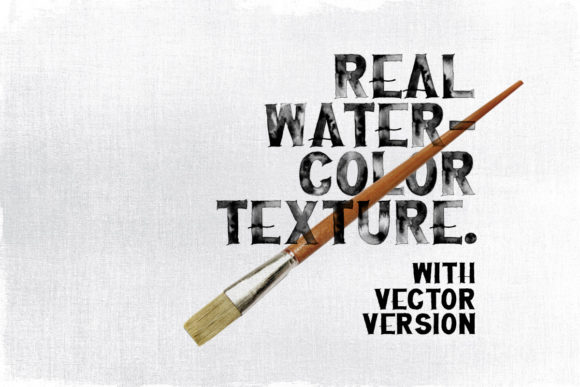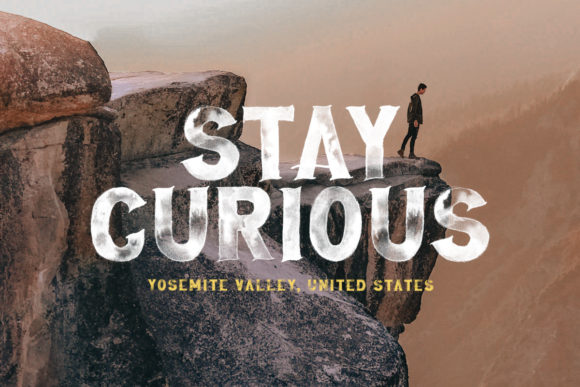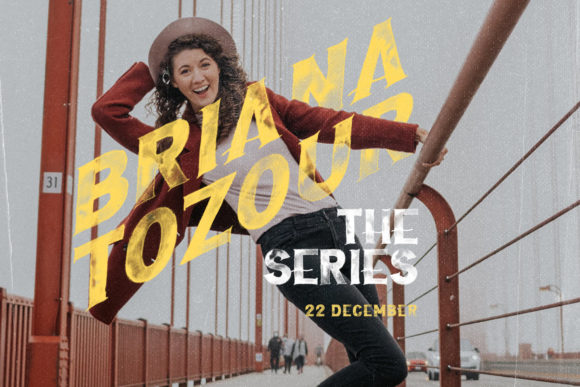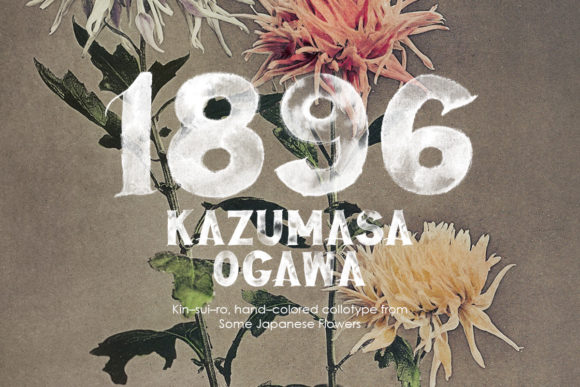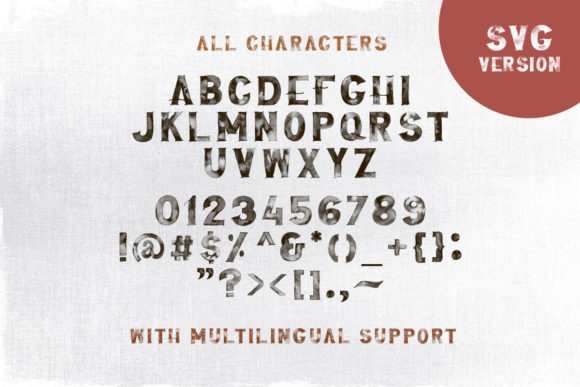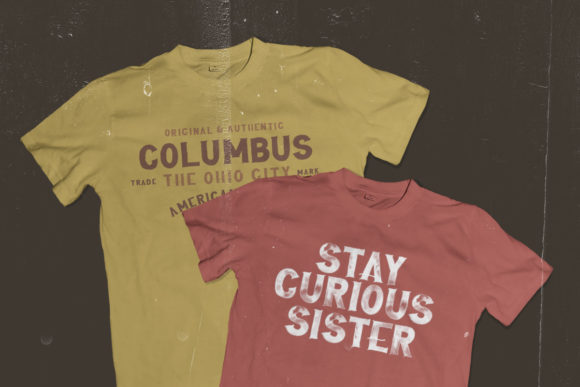
Discover the Power of Center Voyage Font
Have you ever stared at a blank canvas, waiting for that spark of creativity to ignite? The moment when everything clicks, and your idea takes shape is one of the most exhilarating feelings in the world of design. It’s the thrill of bringing something new to life, and it’s exactly what Center Voyage Font is designed to help you achieve.
Center Voyage Font is a unique display font that’s been crafted to elevate your creative ideas to new heights. With its masterful design, this font has the potential to take your projects from ordinary to extraordinary. Whether you’re a seasoned designer or just starting out, Center Voyage Font is a valuable tool that can help you communicate your vision with clarity and style.
Center Voyage Font Key Features
- Unique Characteristics: The font features a unique blend of modern and vintage elements, creating a distinctive visual identity that sets it apart from other fonts.
- Font Style Variations: The font family includes regular, bold, italic, and bold-italic variations, providing designers with a range of options to suit their design needs.
Center Voyage Font Review
I recently had the chance to work with the Center Voyage Font, and I must say it’s a mixed bag. On one hand, there are some things that really work well.
- ✨ Unique aesthetic: The Center Voyage Font has a distinctive, quirky feel that sets it apart from more common fonts.
- ✨ Versatile: It’s suitable for a wide range of projects, from creative and artistic endeavors to more formal and professional applications.
- ✨ Good legibility: The font is easy to read, even at smaller font sizes, which is a must-have for any font.
However, there are also some limitations to consider.
- ⚠️ Limited character set: The font’s character set is somewhat limited, which can make it difficult to use for certain languages or special characters.
- ⚠️ Not suitable for small text: While the font is legible, it’s not ideal for small text sizes, as the characters can become difficult to distinguish.
Overall, I think the Center Voyage Font is a solid choice for designers who are looking for a unique and versatile font. However, it may not be the best fit for every project, and users should be aware of its limitations.
The Center Voyage Font is versatile and can be used in a variety of contexts, including:
- Print design and publishing